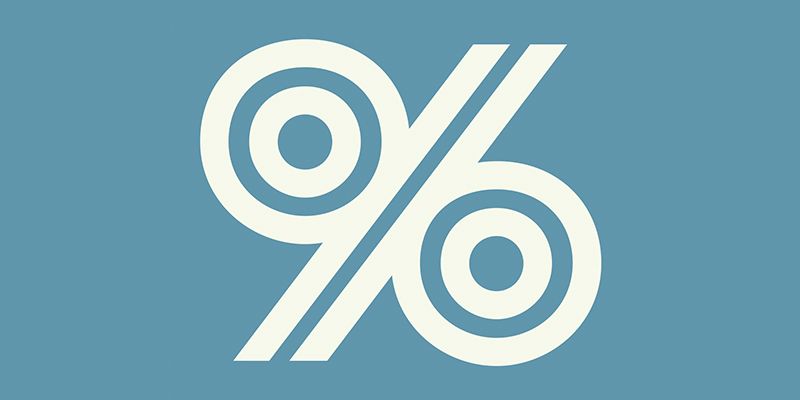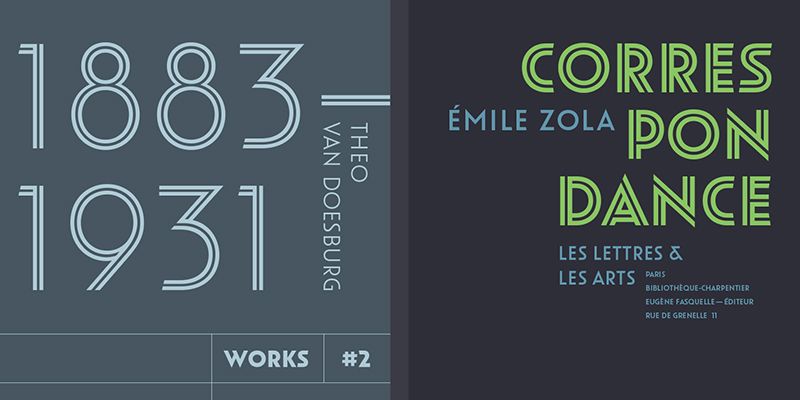
Inspired by early-twentieth-century Dutch lettering on walls and shopfronts (both painted and in metal), Oskar is a distinguished all-caps titling face available in two variants. The expressive Oskar One has pointed apexes and its circular forms resolve in straight, horizontal finials; Oskar Two’s shapes are softer and more conventional with shaved-off sharp corners. Both Oskar One and Two exist in solid and inline versions, each in three weights. Bold Monday, 2002–2013.